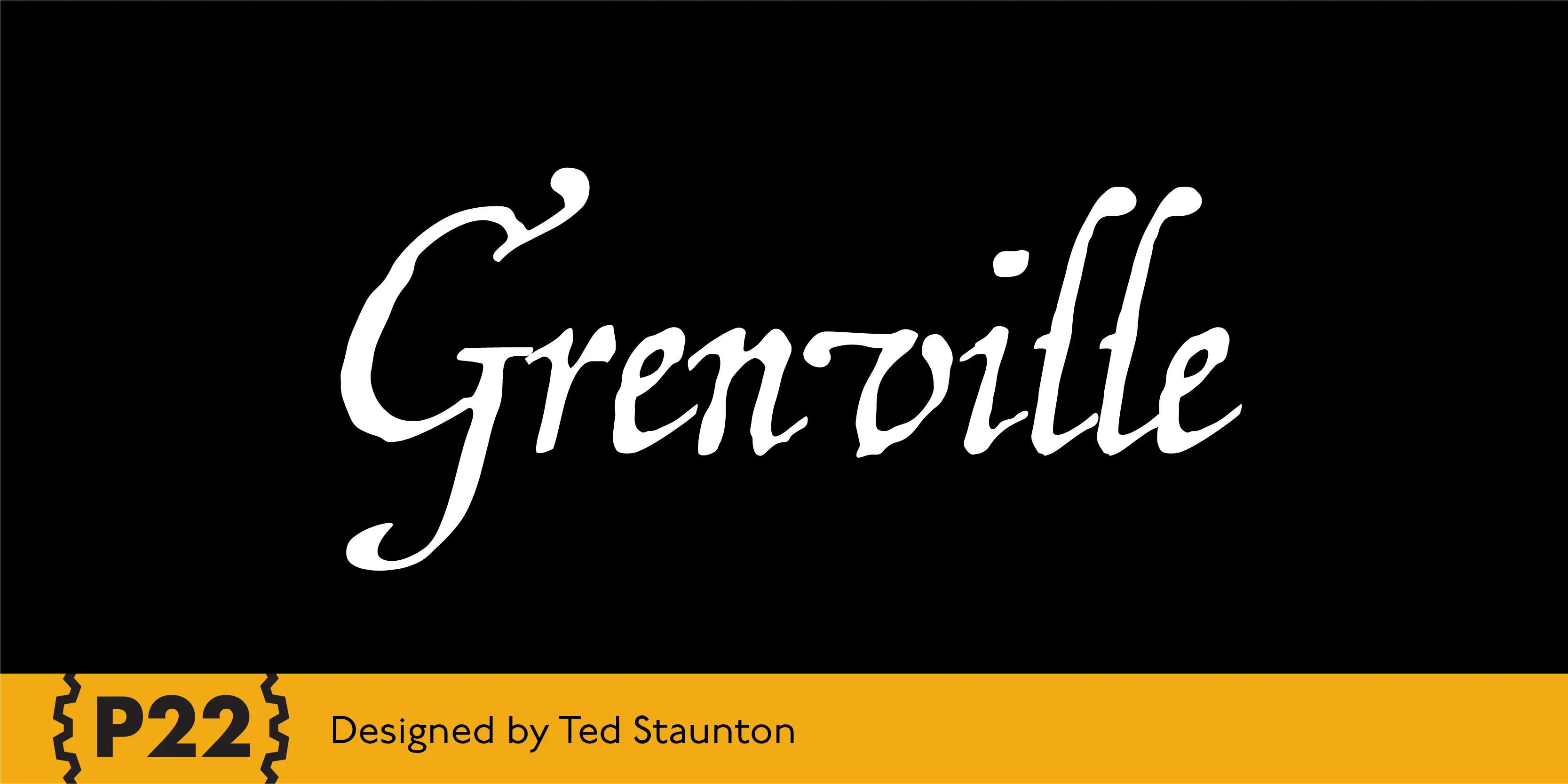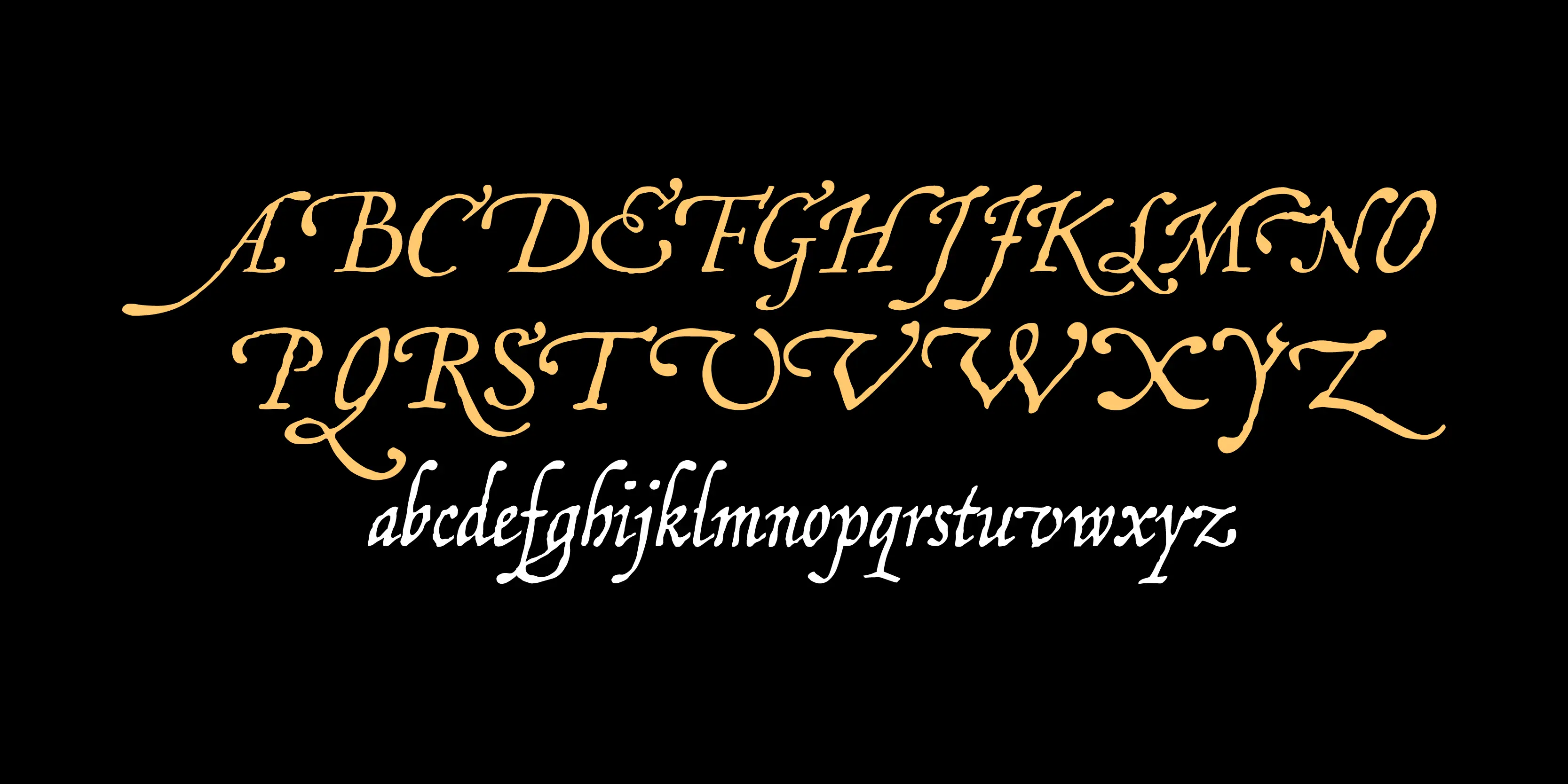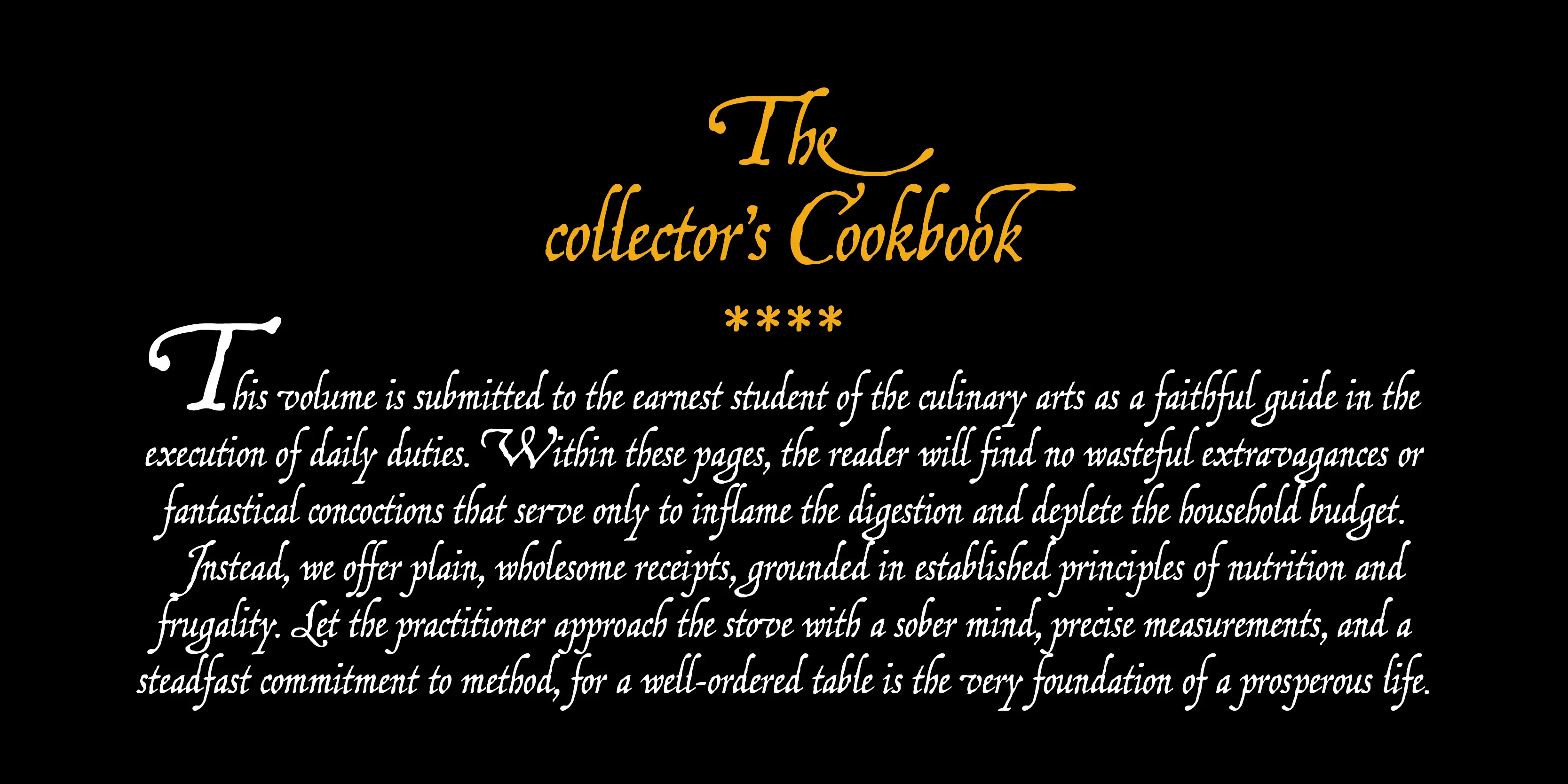
Grenville Font
Grenville
Grenville designed by Ted Staunton for his historic novel centered around a family bible and the handwritten annotation through seven generations. The Grenville font is a graceful Italique Script similar in style to the classic designs of Arrighi’s Operina.